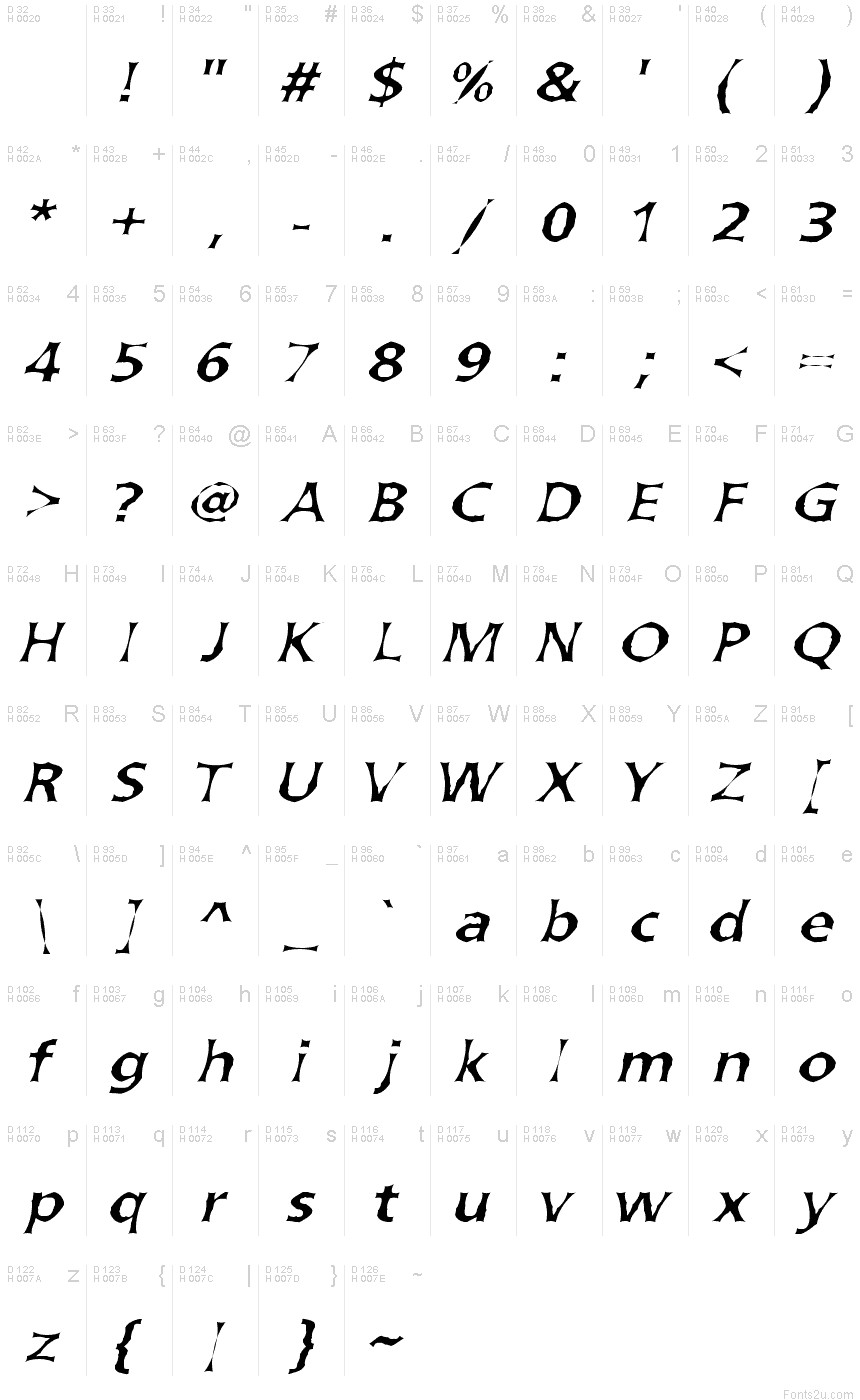
Arvada, designed by Andy Krahling of Sunwalk Designs, is a free decorative serif display font with a cut-paper silhouette, pronounced changes in stroke width, and uneven contours that resemble roughly trimmed paper. Sharp notches interrupt the broad, curving letters at several points.
Packaging is an especially good setting for its hand-cut edges, particularly on craft foods and small-batch drinks, where the lettering can echo hand-painted shop signs. Posters and album covers also suit the irregular shapes, and on fantasy or folk-themed projects the pointed cuts can turn a title into an illustrated crest or carved sign within the artwork itself.